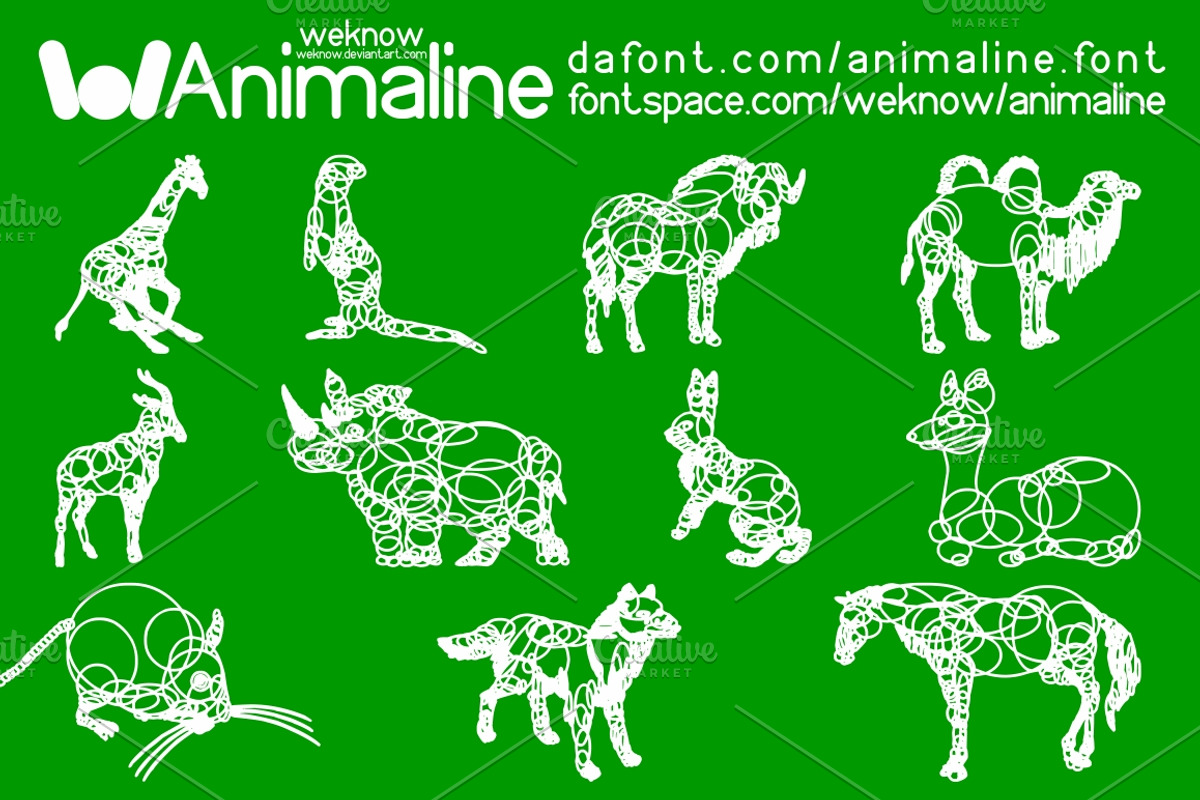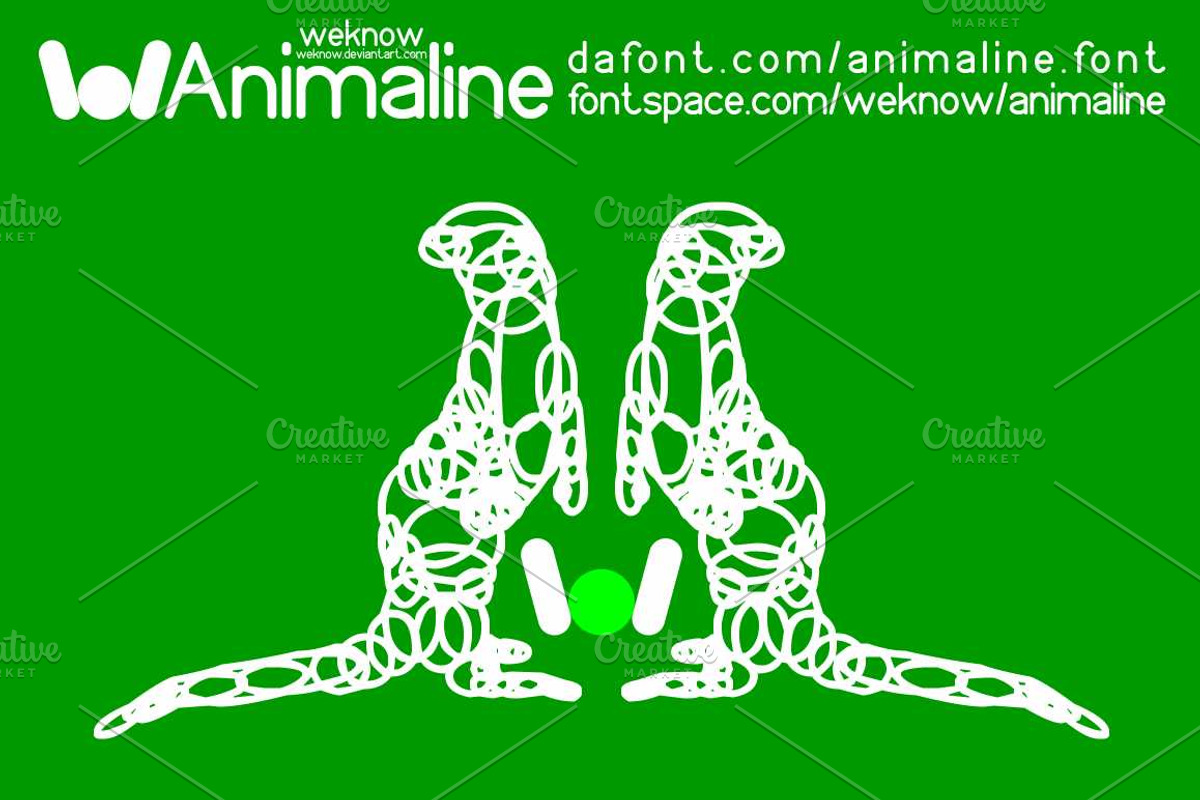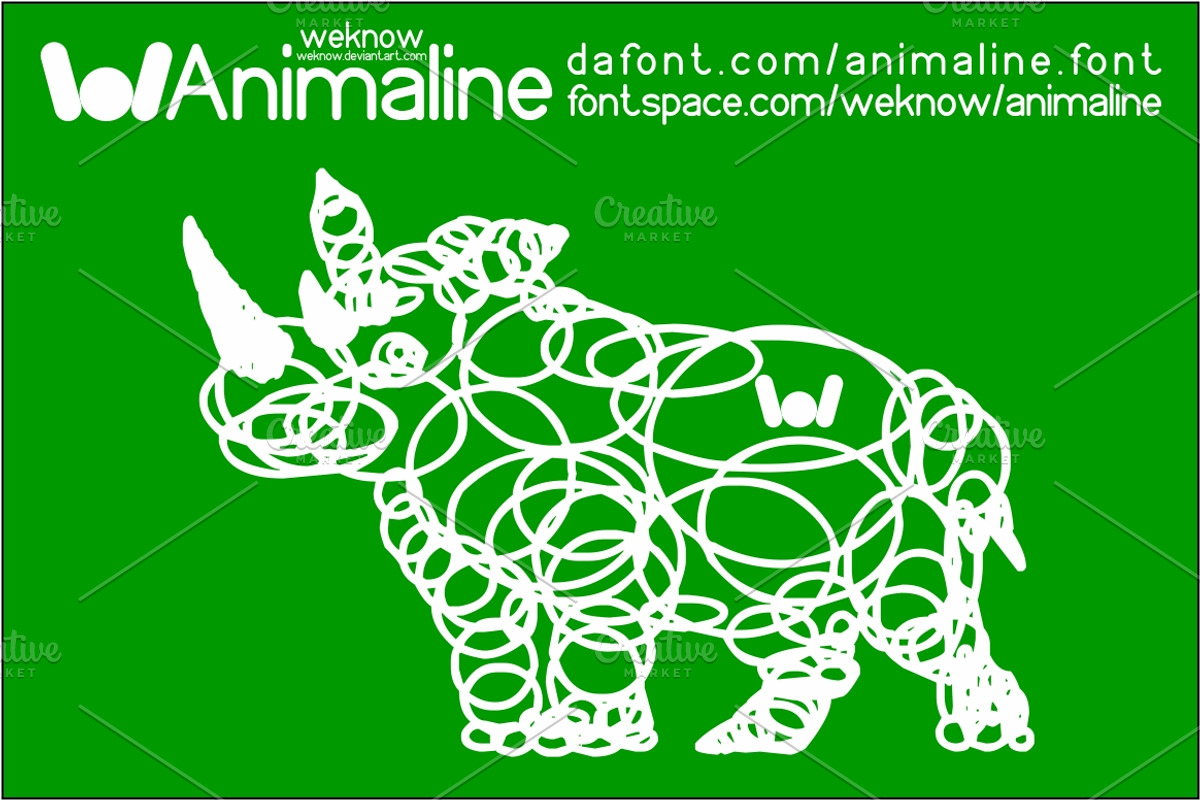
animal line font
animaline is a dingbat font created by weknow Design. For commercial usage of this font the purchase of this license is required.
animal line font by weknow fits naturally into Branding, posters, packaging, typography.